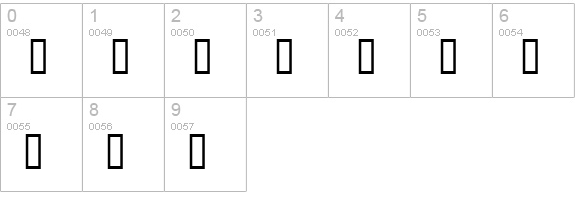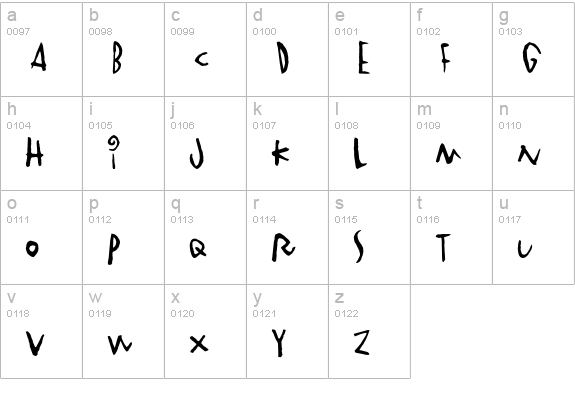
Vinterstad Font Details
Vinterstad font is a stunning display typeface that captures the essence of winter in its elegant and frosty design. With its sleek and modern letterforms, this font brings a touch of sophistication to any project. Its unique combination of sharp edges and delicate curves creates a harmonious balance that is both eye-catching and legible. The Vinterstad font is perfect for a wide range of design applications, from logos and branding to headlines and posters. Its versatility allows it to adapt to any style or concept, making it a great choice for both professional designers and enthusiasts alike. One of the best things about Vinterstad font is that it is free! Yes, you heard it right. This brilliant typeface is freely available to download at FontsMarket.com. Now, you can add a touch of elegance to your designs without breaking the bank. Whether you're working on a personal project or a commercial venture, Vinterstad font is here to elevate your creativity. So, why wait? Head over to FontsMarket.com and grab this amazing font today. With Vinterstad font, you can bring the beauty of winter to your designs and make a lasting impression. Don't miss out on this opportunity to enhance your typography collection with a font that combines style, elegance, and the best part – it's absolutely free!